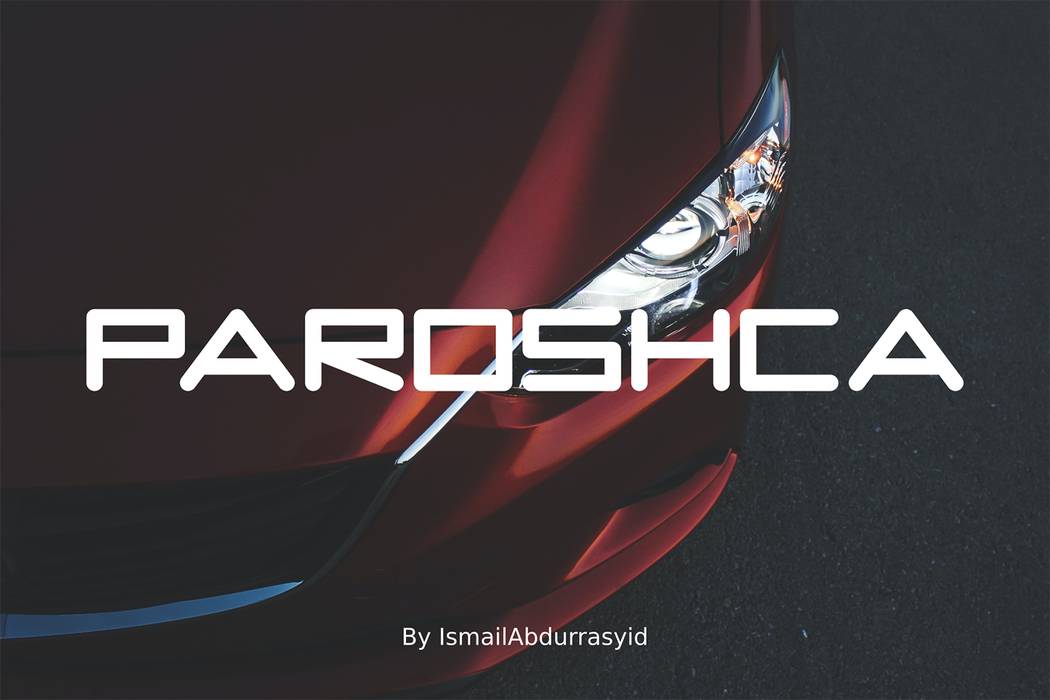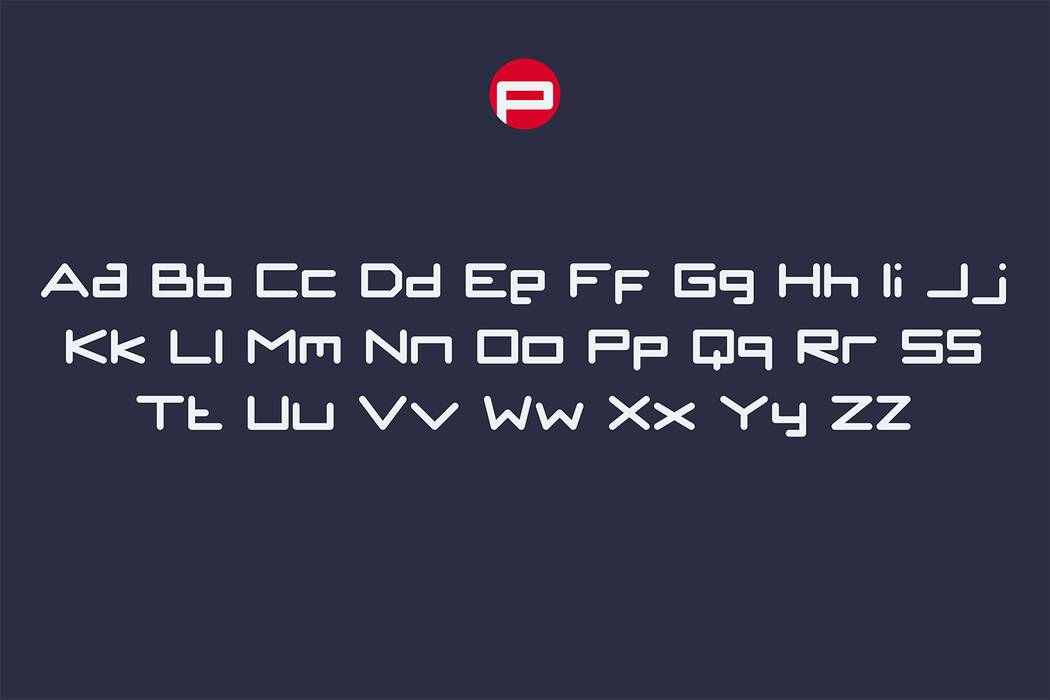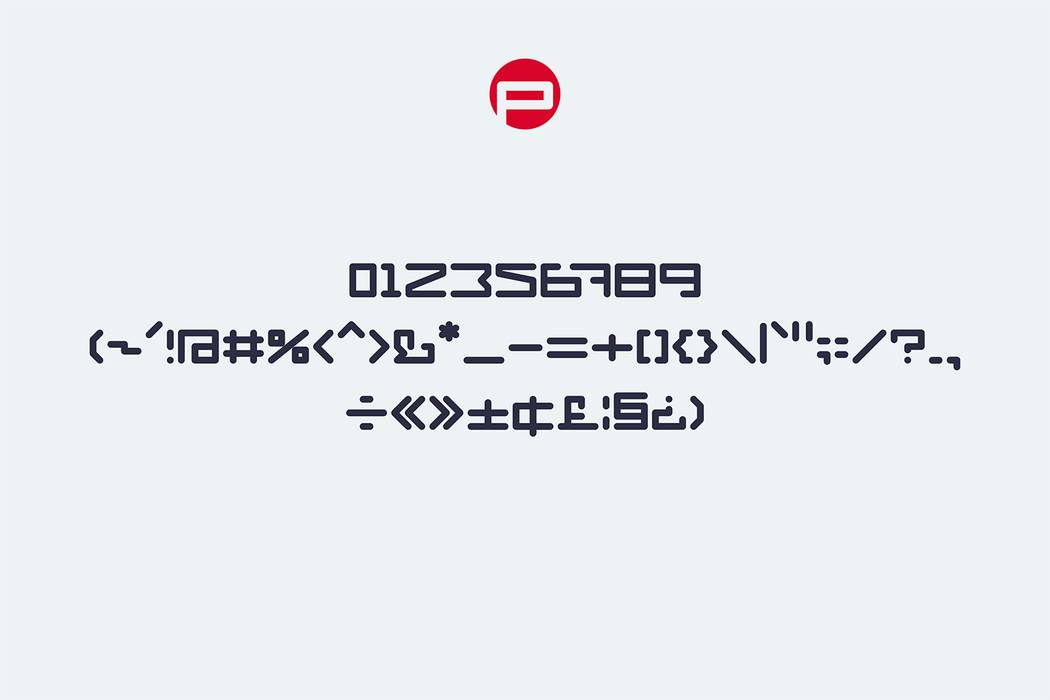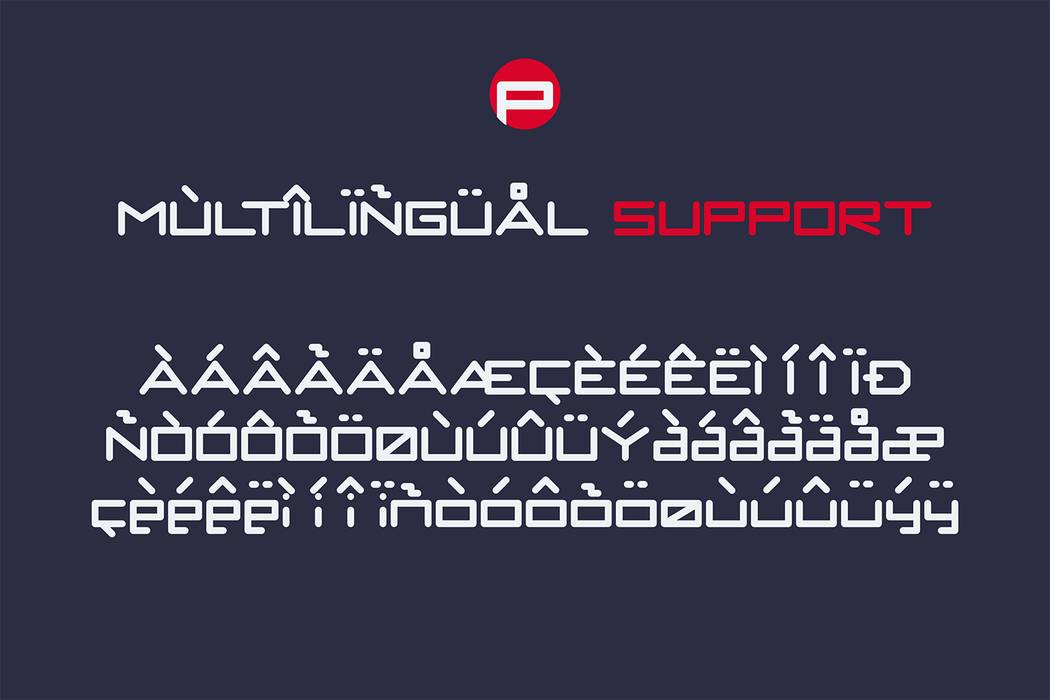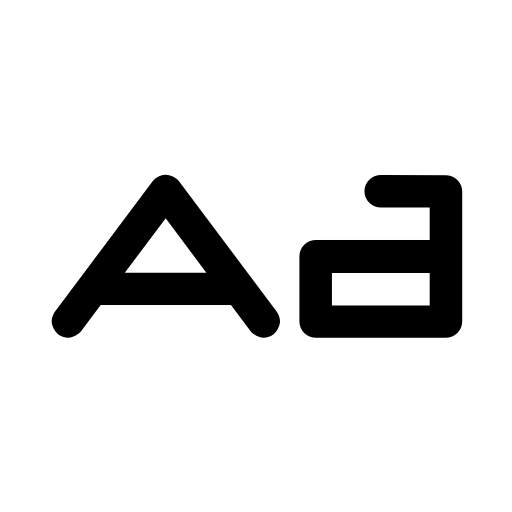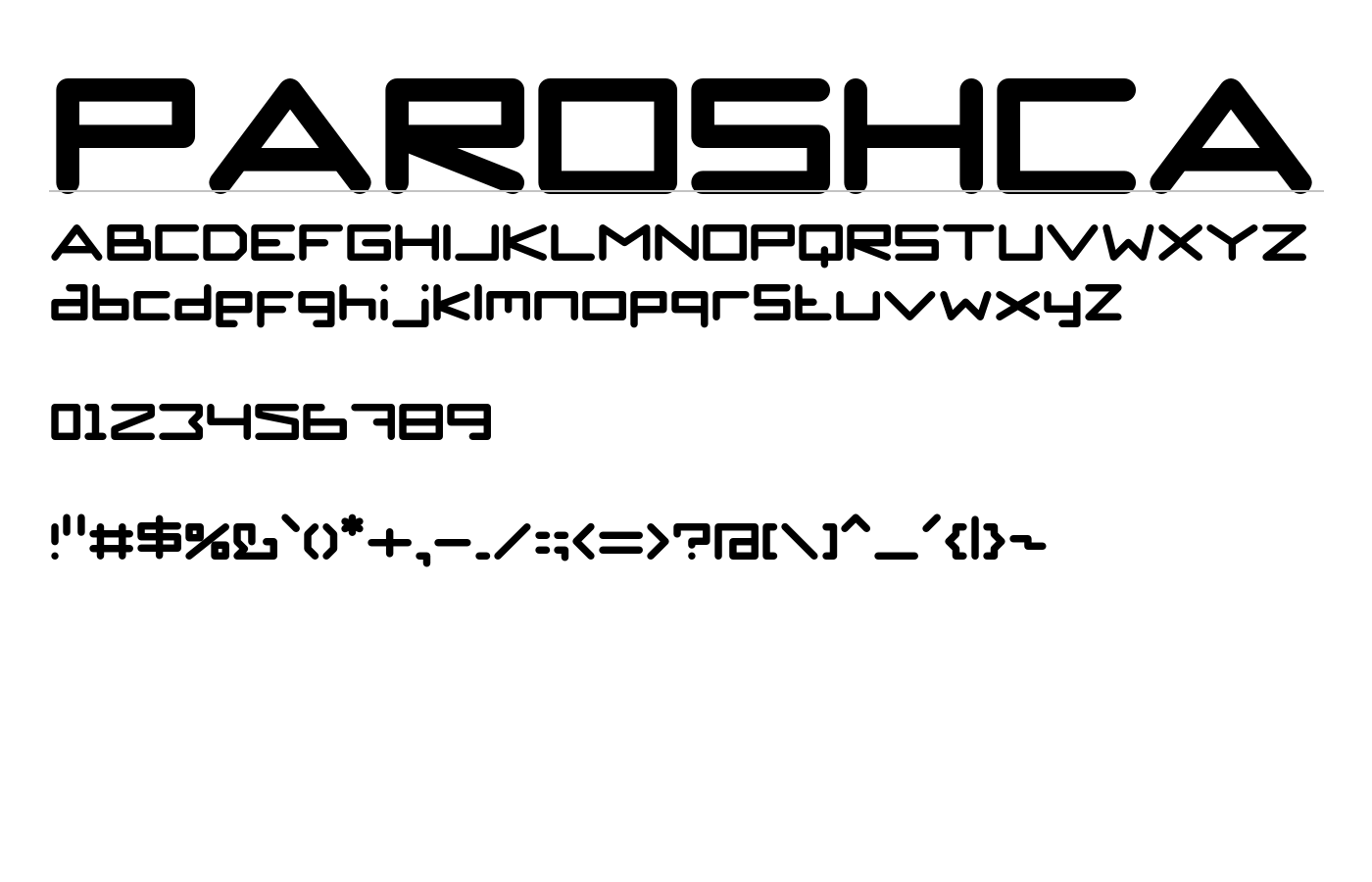
Paroshca is a modern, geometric sans serif font with a futuristic and technical vibe. Its rounded corners and consistent stroke weight create a smooth and approachable feel, while the unique angular details lend it a distinctive and innovative character. This font works well for tech branding, digital products, and headlines where a clean, contemporary style is desired.
Paroshca Font
About Paroshca Font